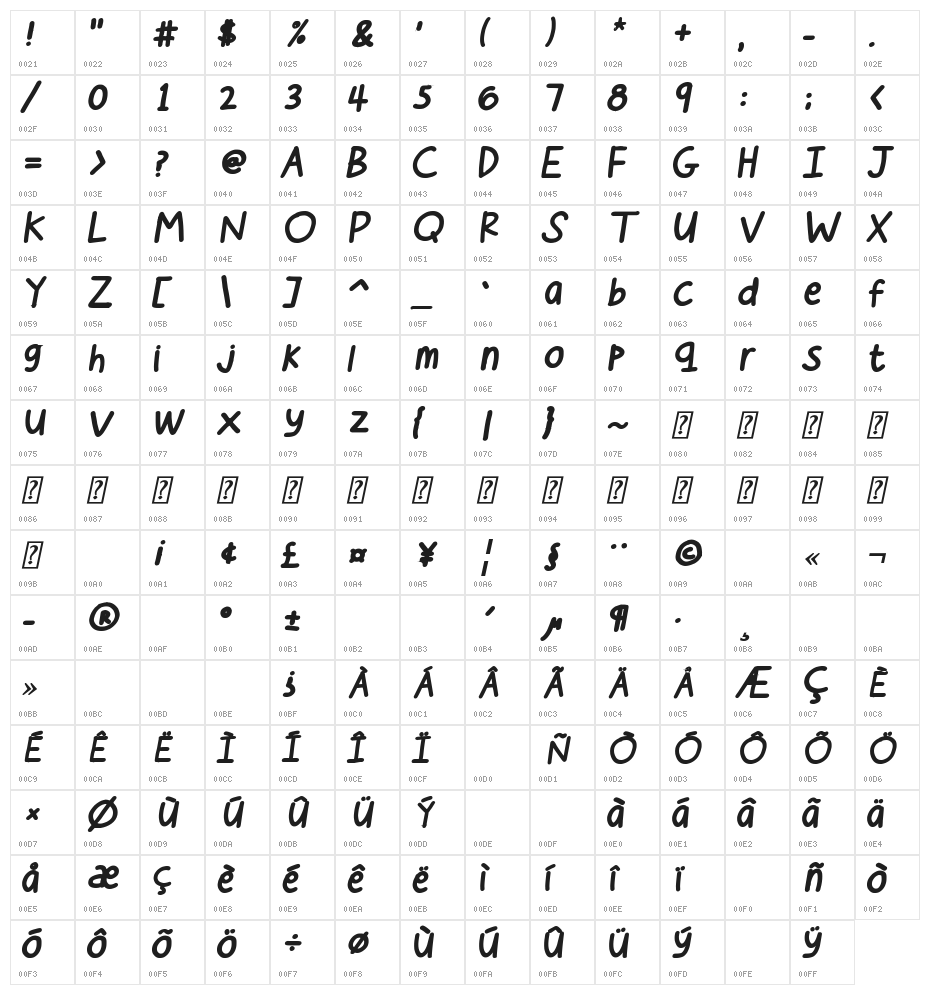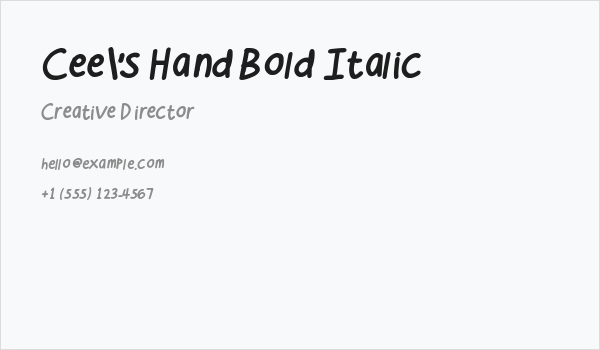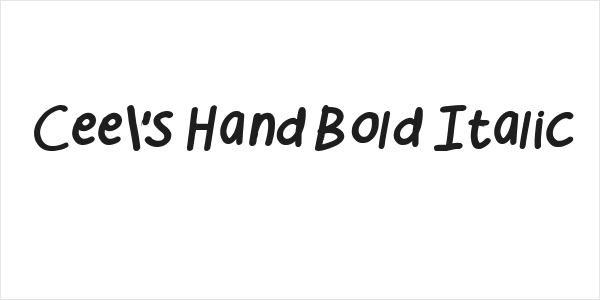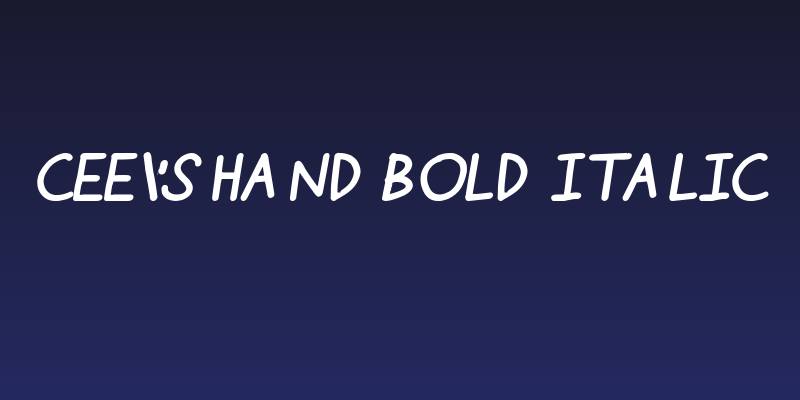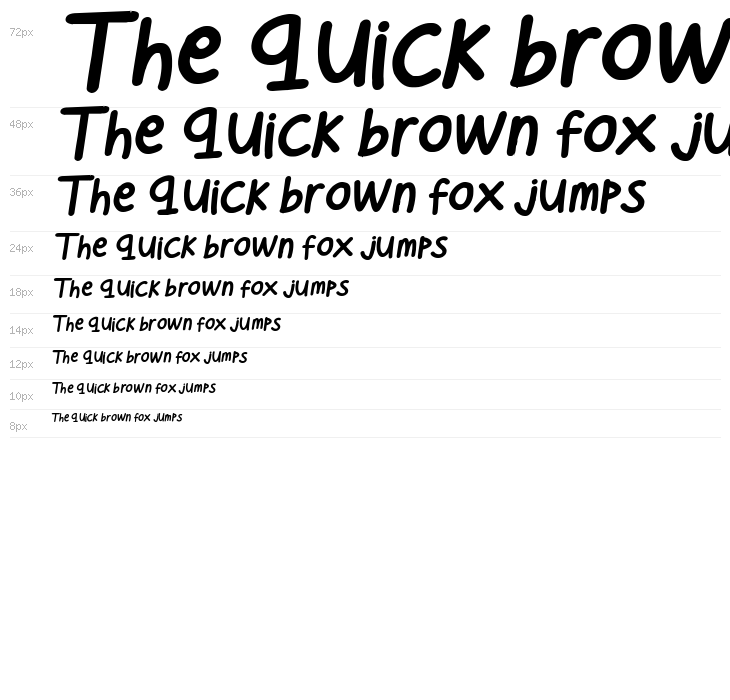
Cee's Hand Bold Italic Font
Cee's Hand Bold Italic Description
This font features a bold and italicized handwritten style, characterized by its fluid and dynamic strokes. The letters are slightly slanted, giving a sense of motion and energy. The uppercase and lowercase letters maintain a consistent style, with rounded edges and a playful appearance. Numbers and special characters are designed to match the overall aesthetic, ensuring a cohesive look across all text elements. The font's informal and friendly vibe makes it suitable for creative and casual projects.
| Overall Style | Playful, Creative |
| Proposed Projects | Ideal for greeting cards, invitations, playful branding, children's books, and creative posters. |